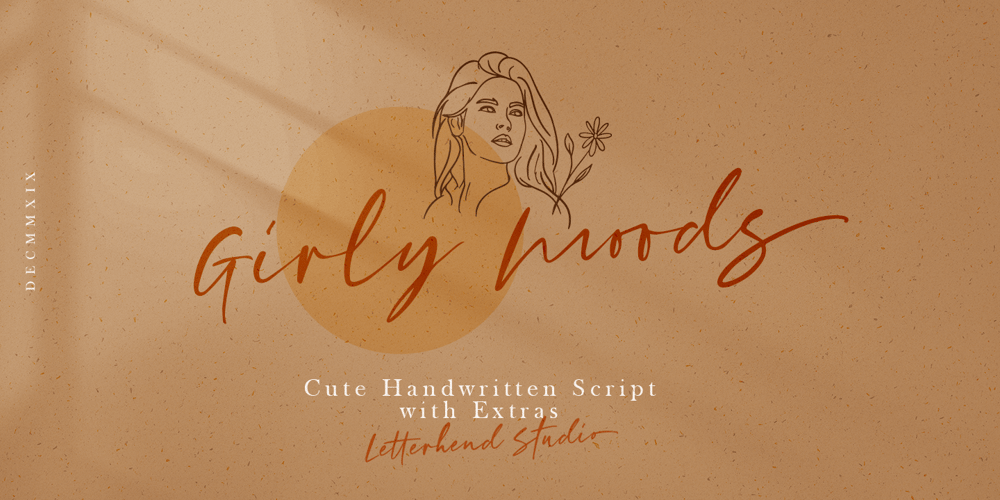
Girly Moods
Girly Moods font
Girly Moods Font Family was designed by Hendry Juanda and published by Letterhend. Girly Moods contains 1 styles and family package options. Girly Moods is a cute handwritten script with a feminine touch.This font is perfect to be applied especially in logos and the other various formal forms such as invitations, labels, magazines, books, greeting/wedding cards, packaging, fashion, make up, stationery, novels, labels or any type of advertising purpose.